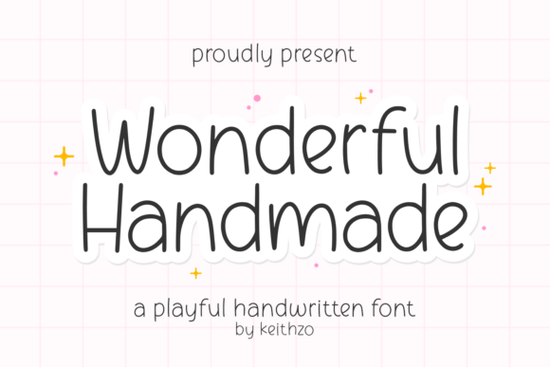
If you’ve been searching for a handwritten font that feels warm, personal, and full of character without looking overly polished or artificial Wonderful Handmade Font might be exactly what your next project needs. Designed to mimic the natural quirks of real pen-on-paper writing, it brings an organic, approachable vibe to everything from greeting cards to product packaging.
Unlike rigid, uniform typefaces, Wonderful Handmade leans into slight inconsistencies the kind you’d see in actual handwriting. These subtle variations give your designs a human touch, which is especially valuable if you’re creating items meant to feel thoughtful, like wedding invitations, handmade soap labels, or cozy café menus.
Why choose a true handwritten style over a clean script?
Clean scripts like Signature or Regalyn work beautifully for elegant branding, but when you want something that feels more casual and heartfelt, a font like Wonderful Handmade stands out. It’s not trying to be perfect it’s trying to feel real. That authenticity resonates with customers who value small-batch, artisanal, or locally made goods.
For print-on-demand sellers, this distinction matters. Shoppers scrolling through mugs, totes, or wall art are often drawn to messages that look like they were written just for them. A slightly uneven baseline, varied stroke weights, and natural letter spacing all contribute to that effect and Wonderful Handmade delivers it without requiring extra design effort.
What kinds of projects work best with this font?
This typeface shines in contexts where warmth and personality are priorities:
- Personal stationery – Think thank-you notes, recipe cards, or journal headers.
- Small business branding – Ideal for bakeries, florists, craft studios, or wellness brands wanting a friendly identity.
- Handmade product labels – Candles, preserves, skincare items anything that benefits from a “crafted with care” aesthetic.
- Social media quotes – Pair with soft backgrounds or textured paper scans for an inviting feed.
It also pairs well with complementary fonts. For contrast, try combining it with a simple sans-serif for body text. If you prefer another handwritten option, Smoothie Delights offers a bouncier, more playful energy, while Your Dreams leans dreamy and delicate both great alternatives depending on your mood.
Is it easy to use for beginners?
One helpful tip: because it’s a single-style font (not part of a large family with multiple weights), focus on size, color, and layout to create visual hierarchy. For example, use larger lettering for headlines and keep supporting text minimal and clean.
How does it compare to other “handmade” fonts?
Many fonts labeled “handwritten” still feel too uniform or digitally smoothed. Wonderful Handmade avoids that by preserving the slight wobble and flow of actual writing. It’s not messy but it’s not robotic either. This balance makes it versatile: professional enough for client work, yet relaxed enough for personal crafts.
If you’ve tried fonts that felt either too stiff or too chaotic, this one strikes a middle ground. It’s readable at small sizes but still expressive when scaled up a rare combination.
Before you commit, consider your project’s tone. If you’re designing a luxury spa brochure, something like Regalyn might suit better. But for a farmers’ market banner, a kids’ birthday invite, or a heartfelt Etsy shop logo? Wonderful Handmade adds just the right amount of charm.
Next steps if you love this style
If you decide to use Wonderful Handmade, here’s how to get the most out of it:
- Test it first. Download the preview file from Creative Fabrica to check spacing and legibility in your intended use case.
- Pair thoughtfully. Avoid combining it with other highly decorative fonts let it be the star.
- Use texture wisely. Overlaying the text on a subtle paper grain or watercolor wash enhances its handmade feel without overwhelming it.
And if you enjoy this aesthetic, explore similar options like Smoothie Delights for a more energetic bounce or Your Dreams for softer, flowing lines they’re all part of Creative Fabrica’s growing collection of character-rich script fonts designed with real-world usability in mind.